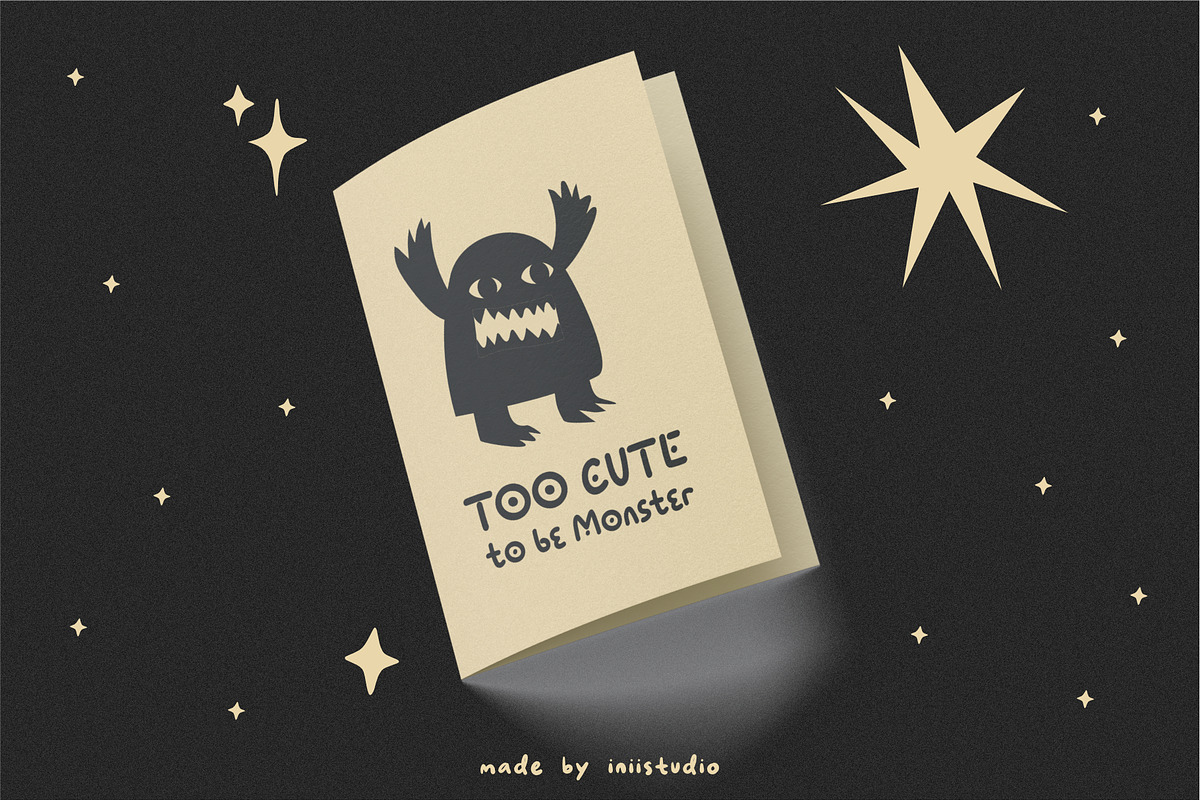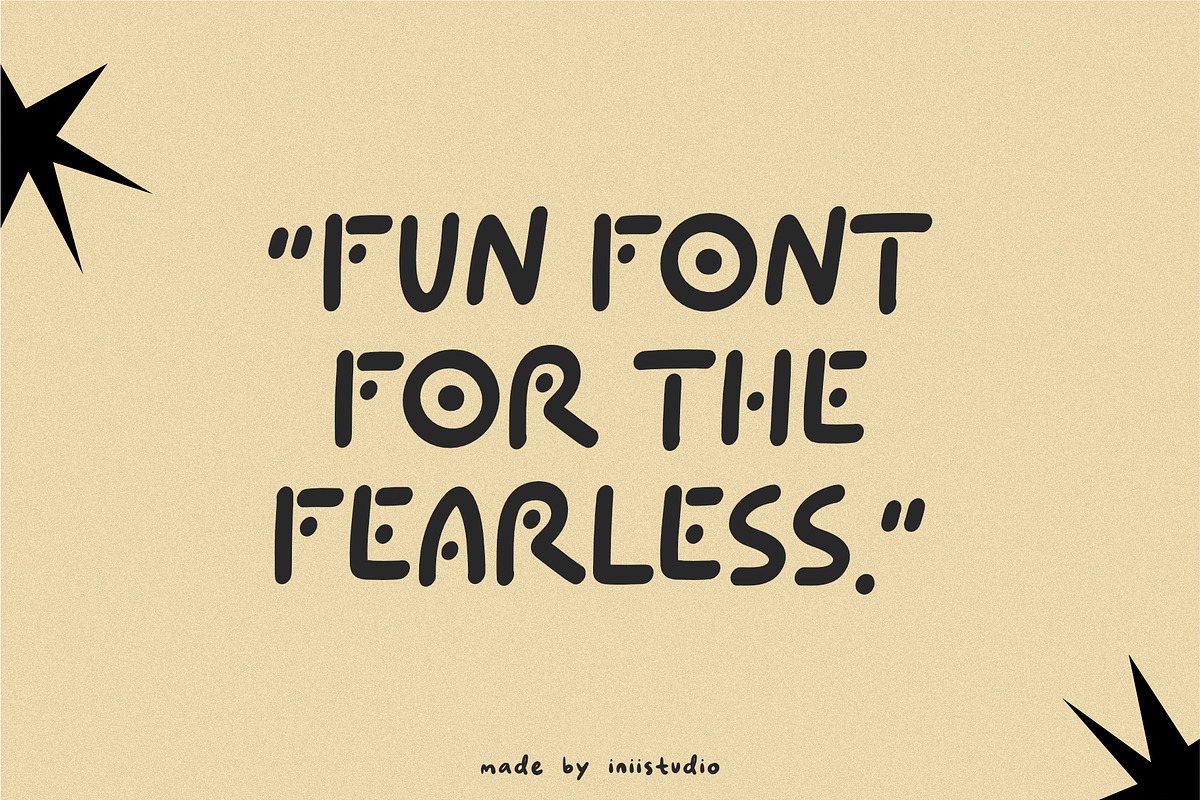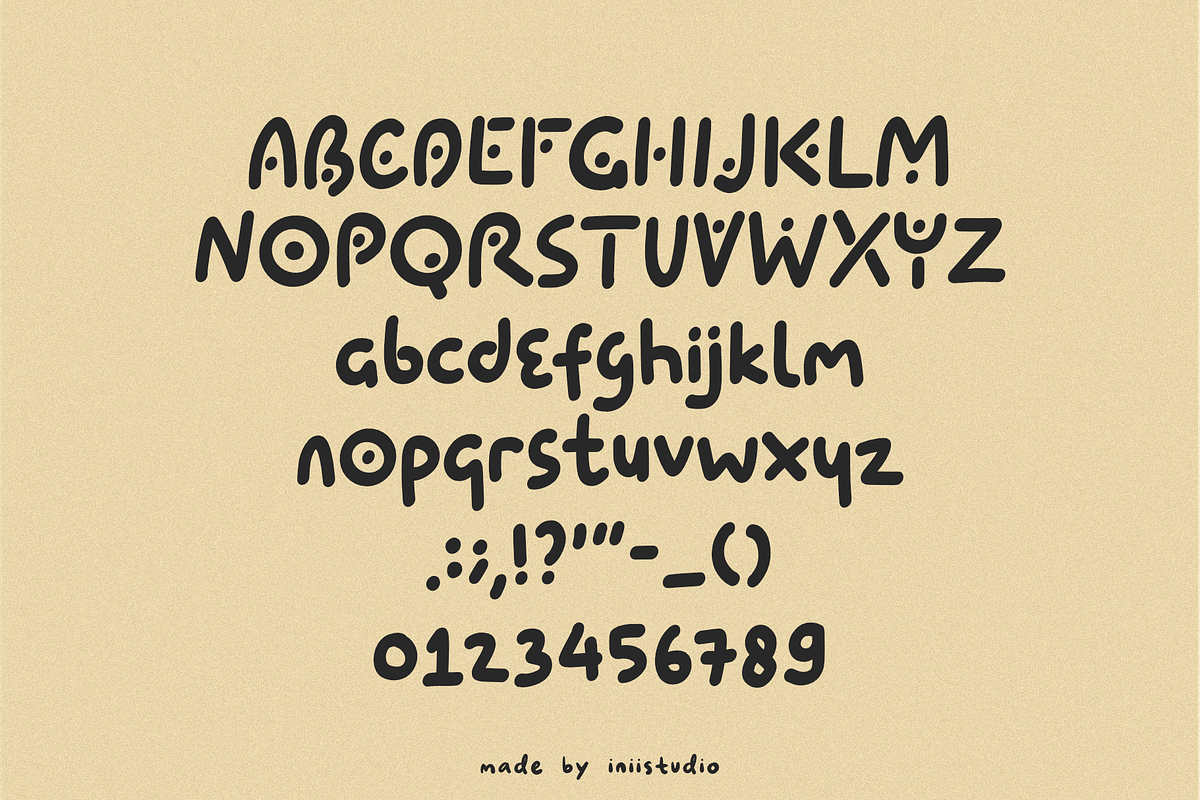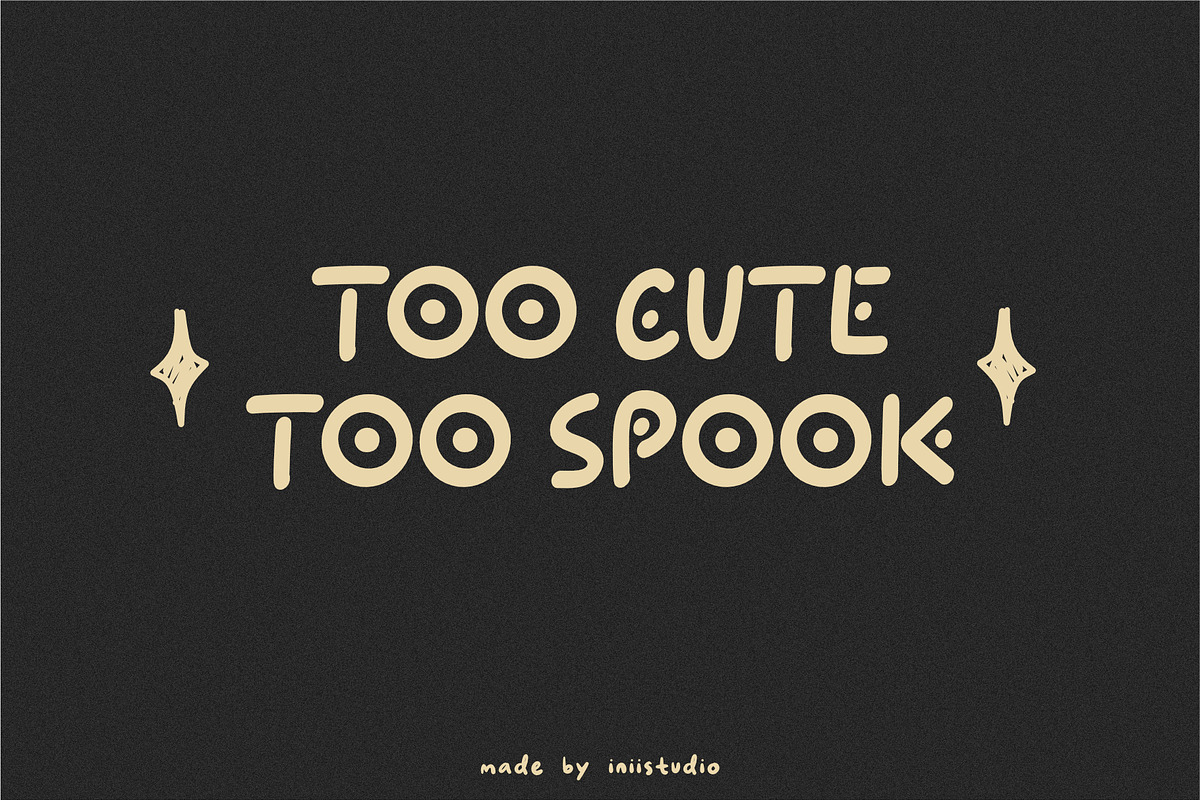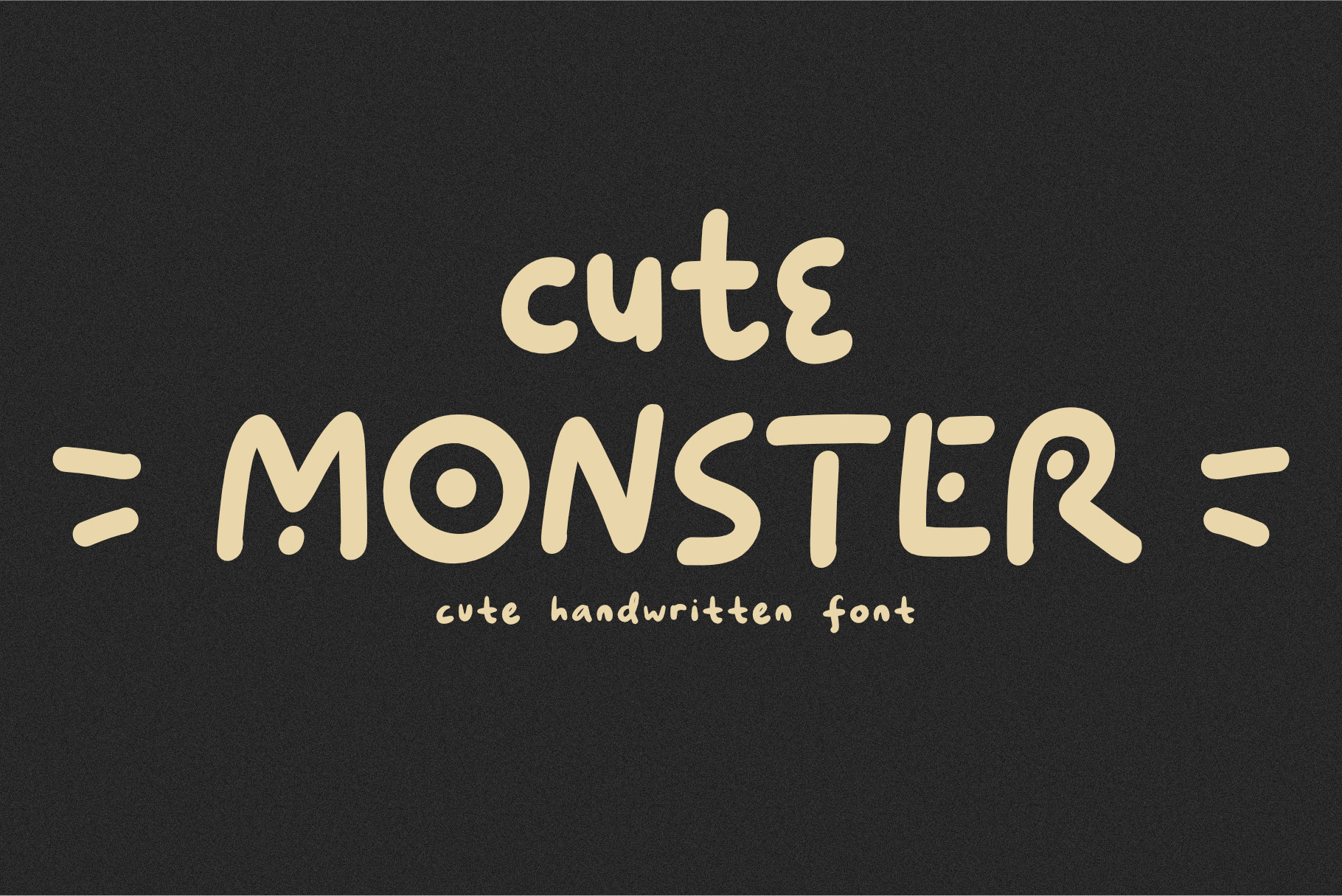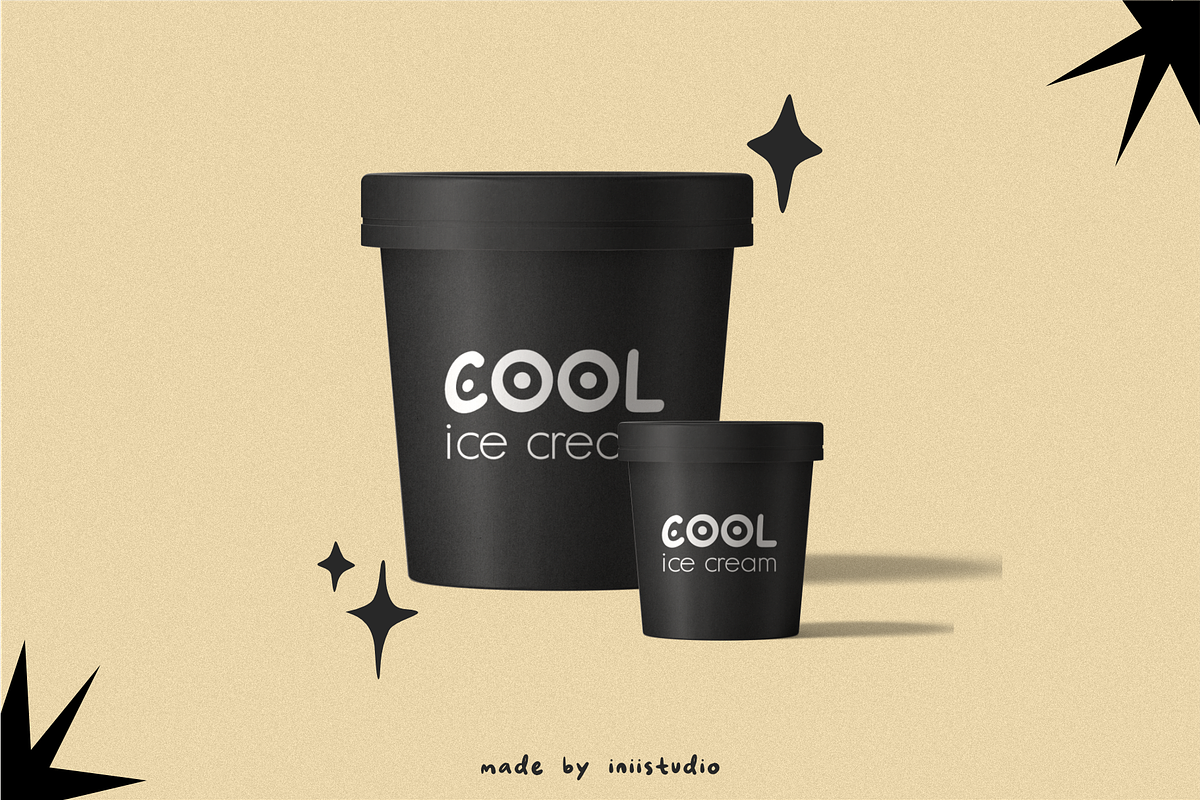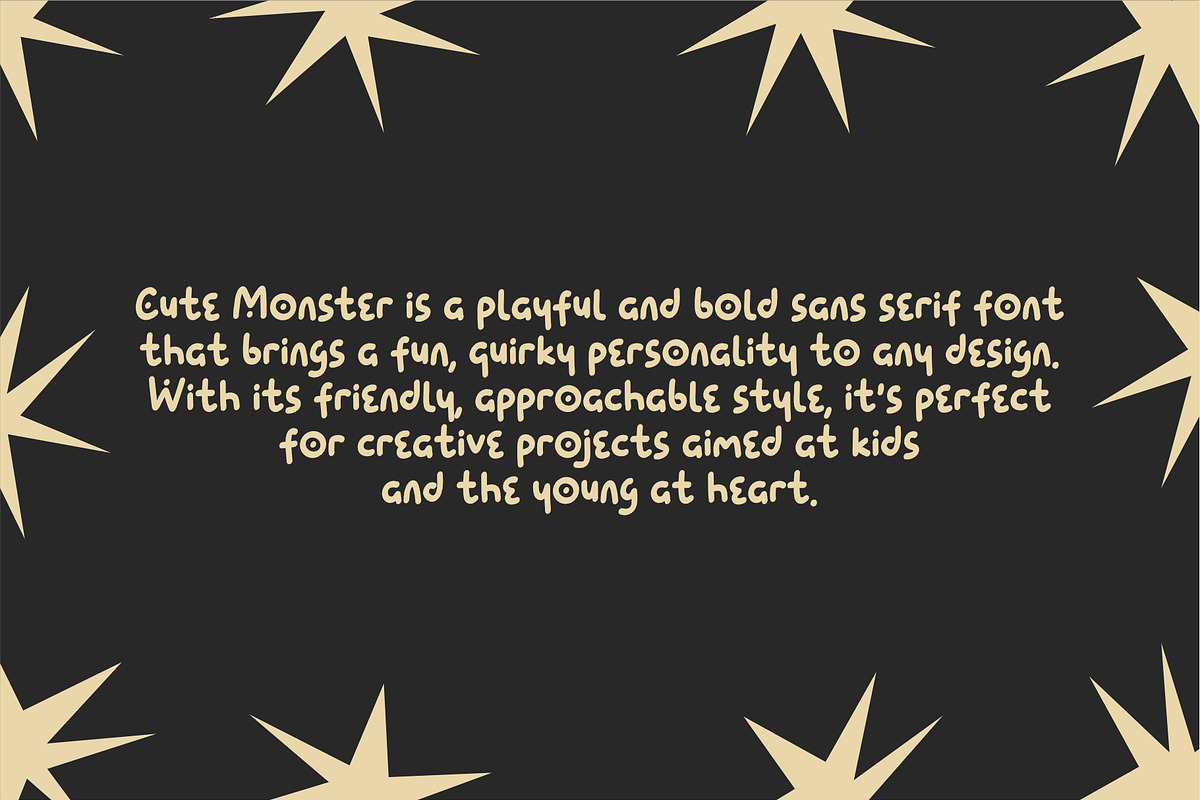
Cute Monster - Cute Handwritten Font
Cute Monster is a playful and bold sans serif font that brings a fun, quirky personality to any design. With its friendly, approachable style, it’s perfect for creative projects aimed at kids and the young at heart. Whether you’re designing for children’s books, party invitations, or playful branding,
Cute Monster adds a whimsical touch without sacrificing readability. Its charm lies in its balance of boldness and cuteness, making it an ideal choice for any project that needs a little bit of fun and a whole lot of personality!